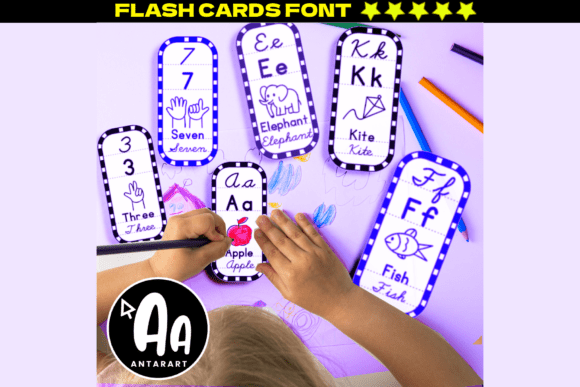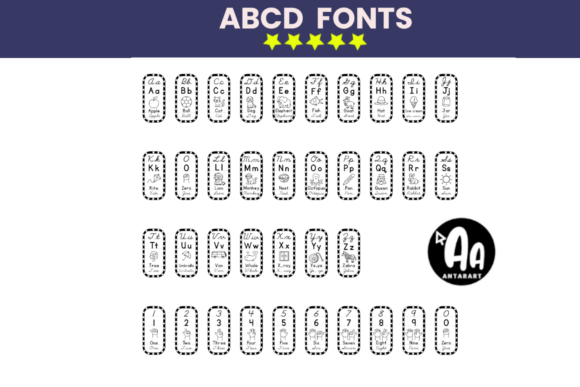
Abcd Cursive & Print Alphabet Flashcards Font: A Fun and Effective Learning Tool
Learning the alphabet can be a daunting task for young children, but with the right tools, it can also be a fun and engaging experience. That’s where the Abcd Cursive & Print Alphabet Flashcards Font comes in – a comprehensive and versatile learning resource that combines both cursive and print letters on one card, making it an ideal tool for preschool, kindergarten, homeschool, and special education settings.
What Makes These Flashcards Special?
These alphabet flashcards are designed to provide a holistic learning experience for young children. Each card features:
- Uppercase and lowercase letters in both print and cursive, allowing children to learn and compare the different letter forms.
- Numbers in print and cursive, helping children develop their numeracy skills.
- A matching vocabulary word and illustration (such as Kite, Fish, Elephant) to boost phonics and letter recognition.
The flashcards are based on the D’Nealian handwriting method, a widely used and respected approach to teaching handwriting. This ensures that children learn to write cursive and print letters correctly, building a strong foundation for future writing skills.
Benefits for Children and Educators
The Abcd Cursive & Print Alphabet Flashcards Font offers numerous benefits for children and educators alike:
- Improved letter recognition: By featuring both cursive and print letters on one card, children can develop a deeper understanding of letter forms and improve their recognition skills.
- Enhanced phonics: The inclusion of vocabulary words and illustrations helps children connect sounds to letters, boosting their phonics skills.
- Develops early reading skills: The flashcards help children build a strong foundation for reading by introducing them to uppercase and lowercase letters, numbers, and vocabulary words.
- Cursive writing skills: The flashcards provide a gentle introduction to cursive writing, helping children develop their handwriting skills.
Design and Layout
The flashcards are designed with a clean layout and visual clarity, making them easy to use and understand. The cards are perfect for:
- Bulletin boards: Display the flashcards on bulletin boards to create a visually engaging learning environment.
- Learning centers: Use the flashcards in learning centers to provide children with a hands-on learning experience.
- Daily classroom use: Incorporate the flashcards into daily classroom activities to reinforce learning and build early reading skills.
The Abcd Cursive & Print Alphabet Flashcards Font is also an excellent resource for designers and crafters who create educational materials, such as:
- Printable flashcards: Use the font to create custom printable flashcards for personal or commercial use.
- Educational crafts: Incorporate the font into educational crafts, such as alphabet charts, posters, and games.
- Digital products: Use the font to create digital products, such as interactive flashcards, e-books, and educational apps.
With the Abcd Cursive & Print Alphabet Flashcards Font, designers and crafters can create engaging and effective learning materials that cater to diverse learning needs.
The Abcd Cursive & Print Alphabet Flashcards Font is a valuable resource for anyone involved in teaching or learning the alphabet. Its unique design, versatility, and comprehensive approach make it an ideal tool for preschool, kindergarten, homeschool, and special education settings. Whether you’re an educator, designer, or crafter, these flashcards are sure to make alphabet learning fun and effective.